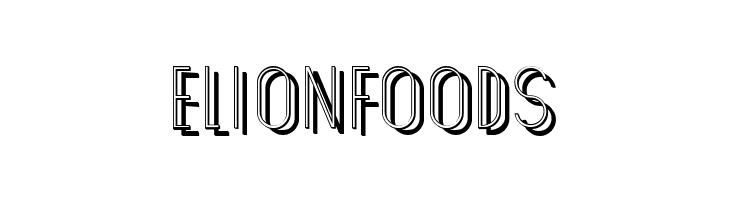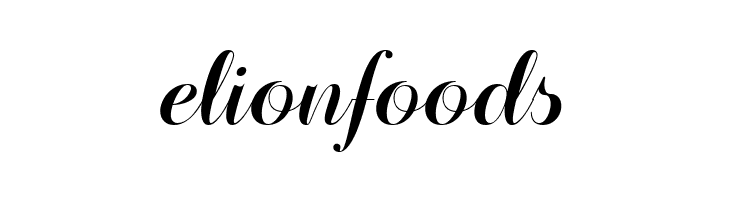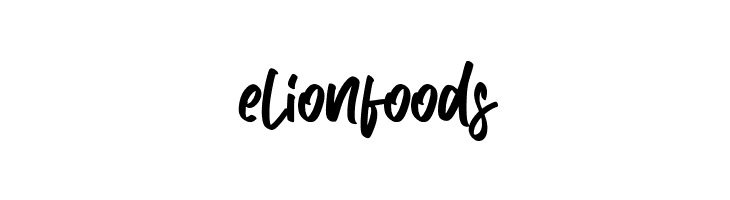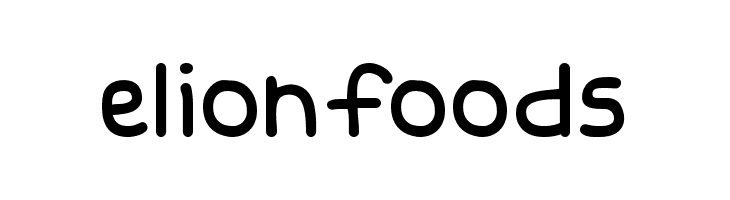
A modern, rounded sans-serif font with a clean and approachable style.
A modern, oblique sans-serif font with smooth curves and consistent stroke width.
An elegant, flowing script font with a sophisticated, cursive style.
A modern, outline-style font with a bold, three-dimensional effect.
A bold, dynamic handwritten font with playful, flowing strokes.
A playful, rounded font with bold, smooth curves and a friendly appearance.
A playful, rounded font with smooth curves and consistent stroke width.
A playful, rounded font with a casual, handwritten style.
A bold, playful font with a cartoonish, hand-drawn style.